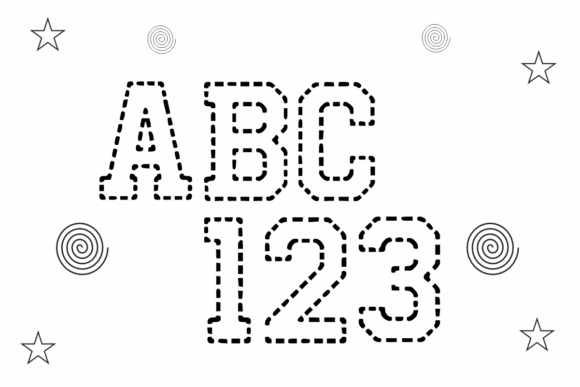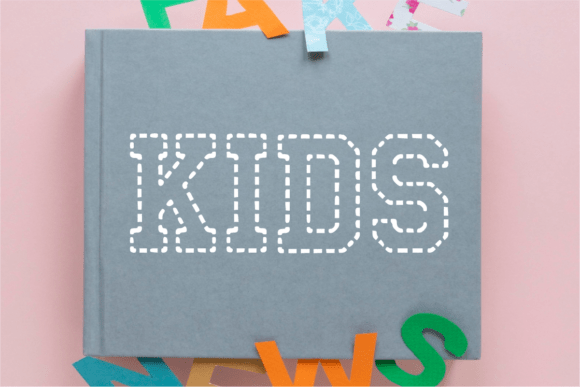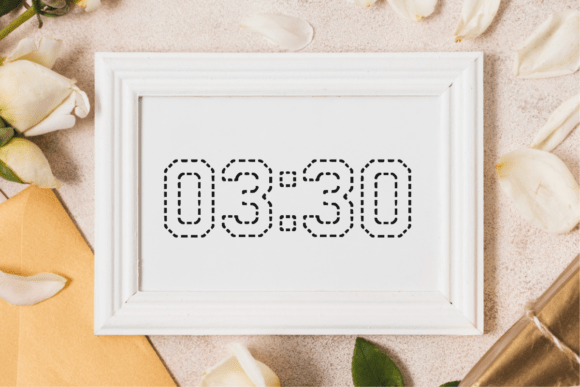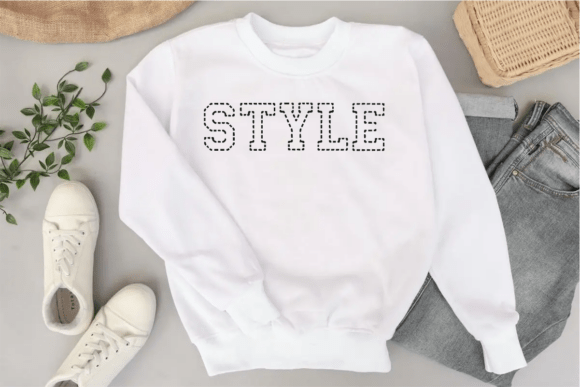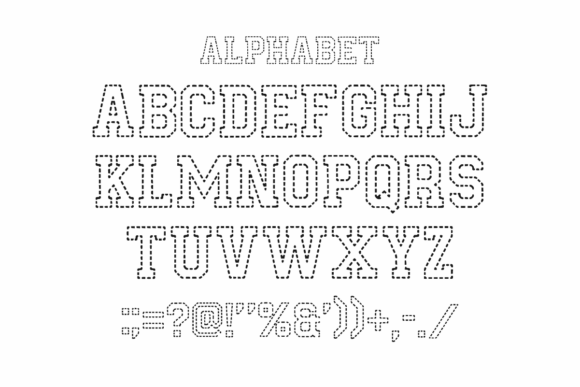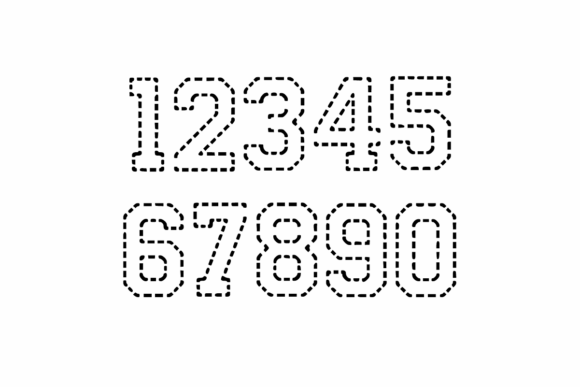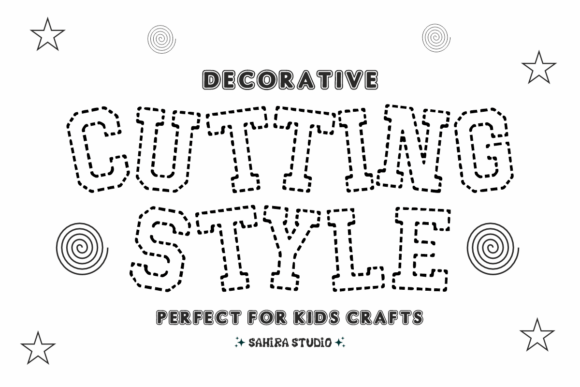
Introducing Cutting Style Font: The Ultimate Decorative Typeface for Creative Projects
Are you a designer, crafter, or artist looking for a font that can add a touch of personality and whimsy to your projects? Look no further than the Cutting Style font, a flamboyant decorative typeface that is sure to make your designs stand out. Crafted exclusively in uppercase letters, this font is a masterclass in charm and individuality, making it the perfect choice for a wide range of creative applications.
The Cutting Style Difference
So, what sets the Cutting Style font apart from other decorative typefaces on the market? For starters, its unique dotted line aesthetic is both playful and sophisticated, lending a touch of elegance to even the most casual designs. Each character in the font’s roster has been carefully crafted to radiate charm, offering a distillate of individuality that promises immediate recognition.
Whether you’re designing playful kids’ crafts, sublimation t-shirts, personalized mugs, stylish tote bags, sprightly animations, comic book titles, or coloring books for children, the Cutting Style decorative font is the artistic companion you’ve been seeking. Its versatility and charm make it an ideal choice for a wide range of projects, from fun and playful to stylish and sophisticated.
The Cutting Style font is a creative powerhouse, offering endless possibilities for designers, crafters, and artists. Here are just a few ideas to get you started:
- Design playful kids’ crafts, such as party invitations, coloring pages, and activity sheets.
- Create eye-catching sublimation t-shirts, hoodies, and other apparel.
- Personalize mugs, water bottles, and other home decor items with a touch of whimsy.
- Design stylish tote bags, pouches, and other accessories.
- Bring your animations to life with a font that’s both fun and dynamic.
- Use the Cutting Style font to create comic book titles, posters, and other graphic elements.
- Develop engaging coloring books for children, complete with fun and playful illustrations.
Unleash Your Creative Potential
| Author | Sahira Studio |
In conclusion, the Cutting Style font is a game-changer for designers, crafters, and artists looking to add a touch of personality and whimsy to their projects. With its unique dotted line aesthetic, charming character set, and endless creative possibilities, this font is sure to inspire and delight. So why wait? Download the Cutting Style font today and start unleashing your full creative potential!